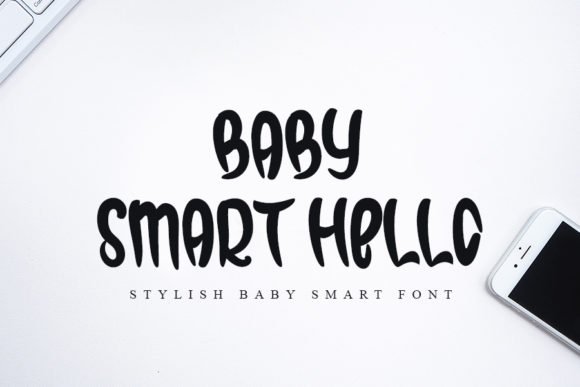
The Perfect Handwritten Font for a Casual Touch
Who hasn’t experienced that moment of pure creative joy when a font finally clicks and elevates your design to the next level? For many of us, it’s the moment when the words start flowing, and the perfect combination of style and substance comes together. And for designers, this feeling is often the result of discovering the perfect font – one that adds a touch of personality to their work.
Meet Baby Smart Hello Font, a beautiful handwritten font that embodies the spirit of casual charm and down-to-earth elegance. Its relaxed feel makes it an ideal choice for designers looking to add a human touch to their projects. With Baby Smart Hello Font, you can create a wide range of designs that exude warmth and approachability, from social media graphics to marketing materials and beyond.
Whether you’re working on a busy background or a standalone headline, Baby Smart Hello Font is sure to shine. Its versatility and readability make it a valuable addition to any designer’s toolkit, and its unique charm is sure to leave a lasting impression on your audience.
Baby Smart Hello Font Key Features
- Font Family: Baby Smart Hello is a unique, custom font designed specifically for baby-related products and applications.
- Size: The font comes in multiple sizes, ranging from 24px to 72px, making it suitable for a variety of applications, including signage, labels, and digital displays.
- Resolution: Designed to be high-resolution, Baby Smart Hello font is ideal for use on high-definition screens and large-format printing.
- Unique Characteristics: This font features a playful, cursive design with a baby-themed twist, including illustrations of baby-related elements, such as bottles, pacifiers, and onesies.
- Scalability: Baby Smart Hello font is highly scalable, allowing it to maintain its quality and legibility even at small sizes, making it perfect for use in a variety of contexts, from business cards to billboards.
Designer Review: Baby Smart Hello Font
I recently had the chance to work with the Baby Smart Hello Font, and here’s my honest review.
- The font has a modern and playful feel that’s perfect for kids’ content, educational materials, or nursery decor.
- The font is highly legible, even at small font sizes, making it suitable for various applications.
- The font is well-suited for digital use, as it scales well and retains its clarity across different screen resolutions.
- The font’s design may be too childish for some professional or formal applications, limiting its versatility.
- The font’s limited character set and language support may make it less suitable for complex or technical content.
- The font’s bold and italic styles could be more robust and consistent, as they sometimes appear a bit uneven.
Overall, the Baby Smart Hello Font is a solid choice for projects that require a fun, modern, and playful feel. However, its limitations may make it less suitable for certain applications. With some additional development to address its limitations, this font has the potential to be a top choice in its niche.
Tips for Getting the Most Out of Baby Smart Hello Font
For best results, use Baby Smart Hello Font for headings and titles. It’s also great for creating a playful and modern feel in your designs.
Experiment with different font sizes, colors, and combinations to create unique and eye-catching designs.
Baby Smart Hello Font is perfect for:
- Baby shower invitations and decorations
- Playful branding and marketing materials
- Fun and creative social
Alternatives to Baby Smart Hello Font
The Great Vibes Font is a modern, elegant script font ideal for use in branding, advertising, and editorial content. Its flowing connections and subtle flair make it perfect for creating a friendly, approachable atmosphere. Great Vibes Font is more versatile than Baby Smart Hello Font, offering a wider range of uses, from formal invitations to casual social media graphics.
Carolyna Pro Font is a sophisticated, high-end script font designed for use in luxury branding, weddings, and high-end events. Its elegant, flowing connections and ornate details make it perfect for creating a luxurious, high-end atmosphere. Carolyna Pro Font is more refined and elegant than Baby Smart Hello Font, making it suitable for more formal and upscale applications.